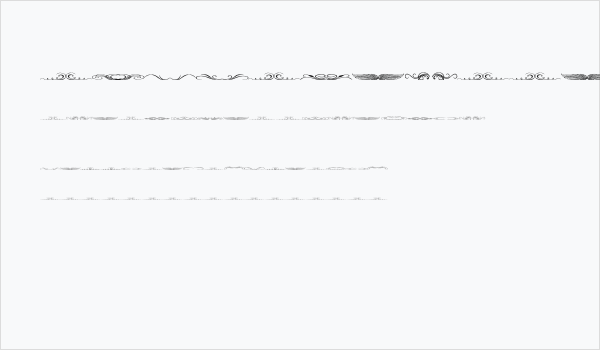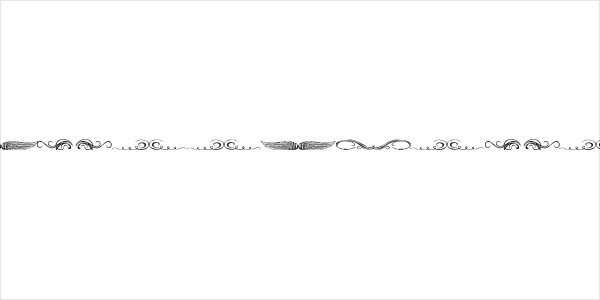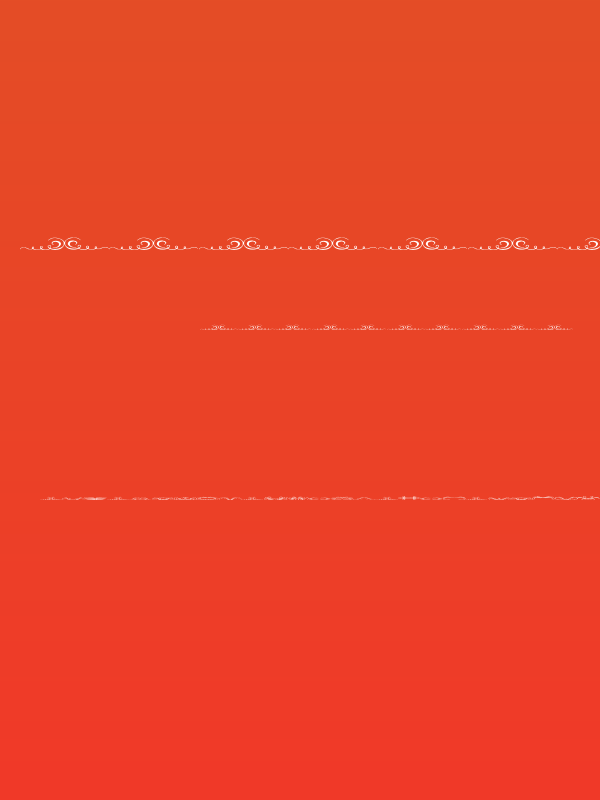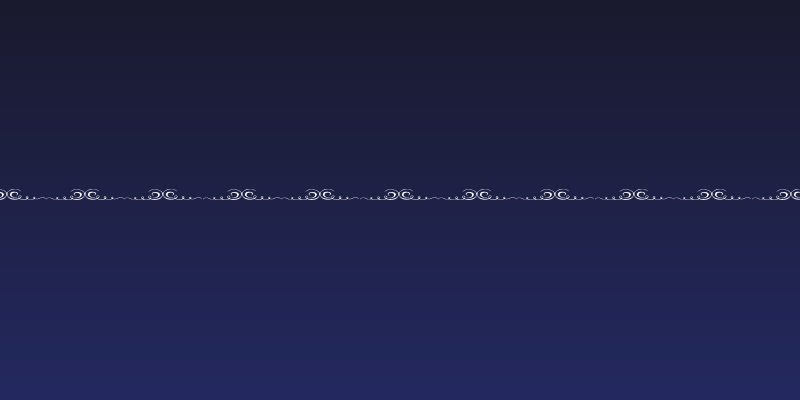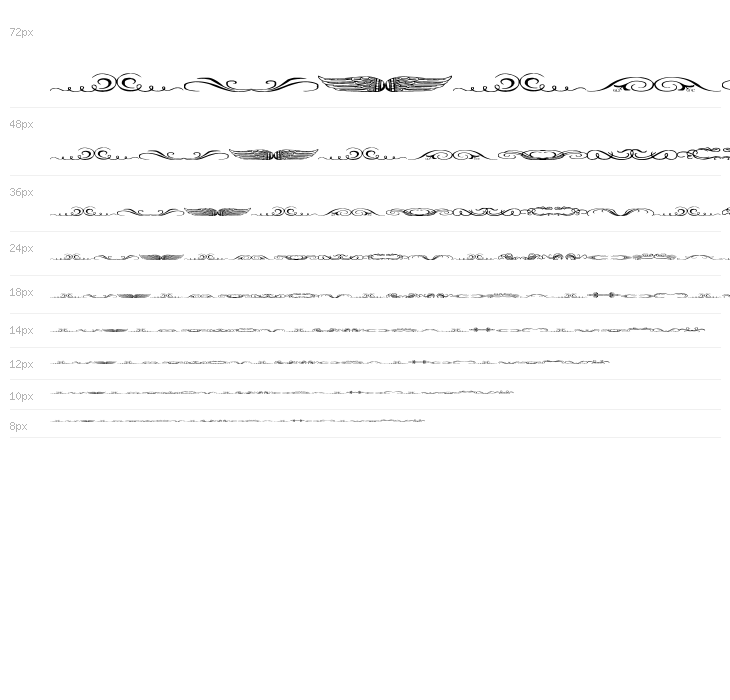
Sughayer Separates 15 Font
Sughayer Separates 15 Description
A collection of ornate, decorative line separators featuring intricate swirls and flourishes, designed to serve as embellishments or dividers in layouts rather than as a traditional font for text.
| Overall Style | Decorative, Vintage |
| Use Case | Dividers, Borders, Decorative accents |
| Proposed Projects | Wedding invitations, certificates, vintage-themed designs, decorative borders, formal event programs. |